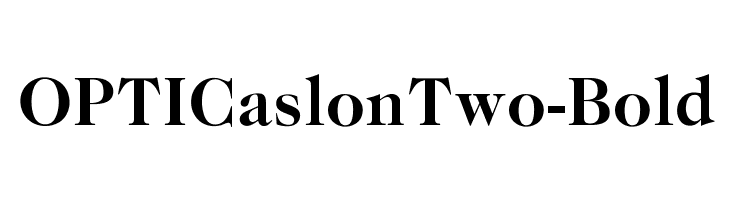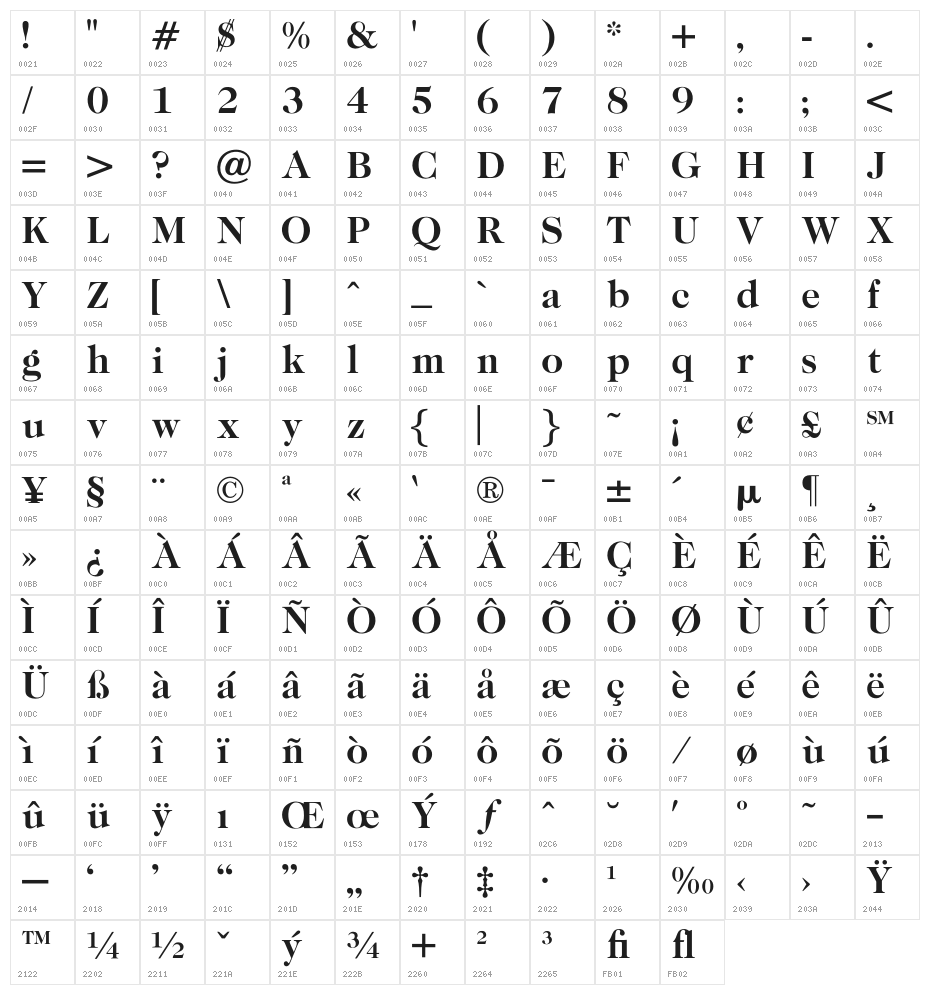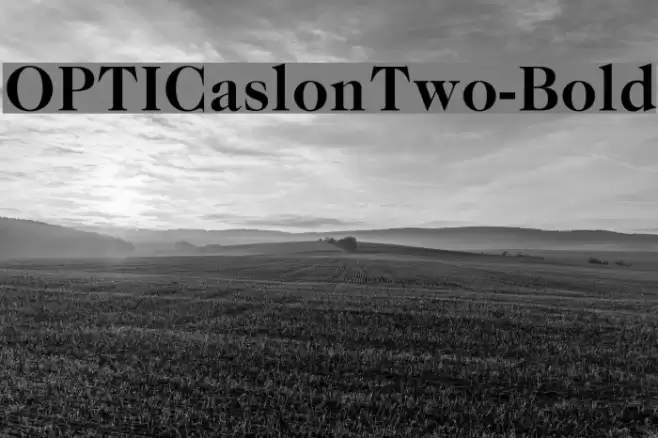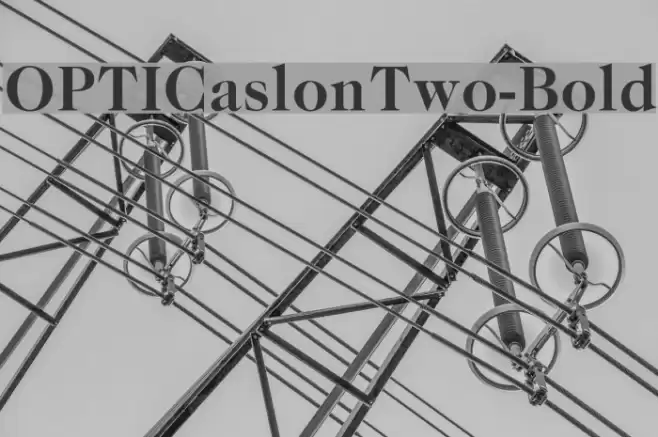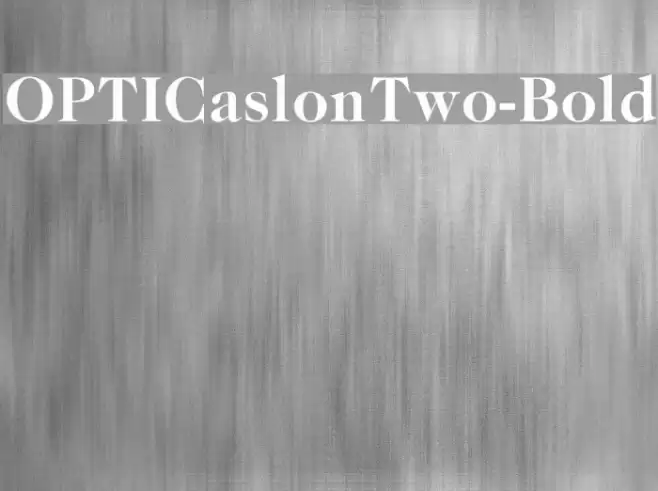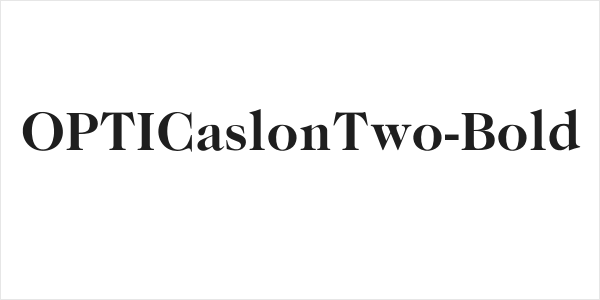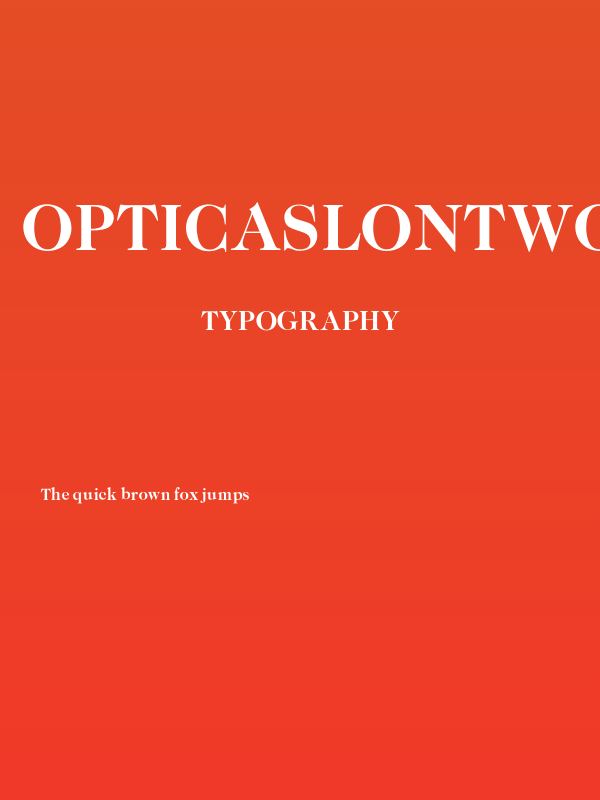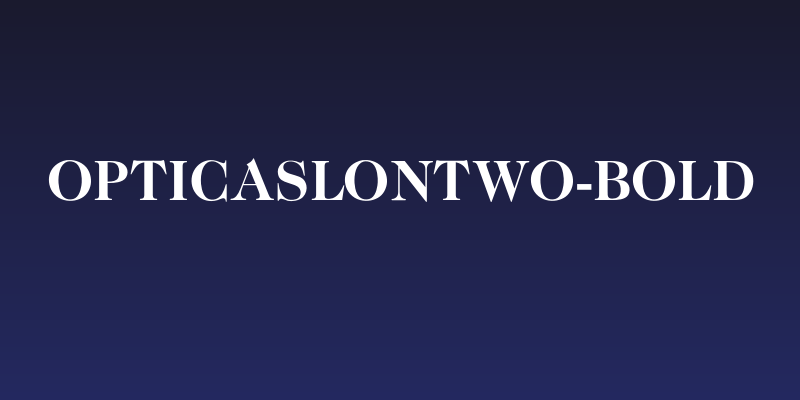
OPTICaslonTwo-Bold Font
OPTICaslonTwo-Bold Description
This font features a classic serif style with strong, bold strokes and a high contrast between thick and thin lines. The serifs are pronounced and elegant, giving the typeface a timeless and sophisticated appearance. The uppercase letters are stately and well-proportioned, while the lowercase letters maintain a harmonious balance with slightly rounded edges. The numerals are clear and distinct, making them suitable for a variety of applications. Special characters are designed with the same attention to detail, ensuring consistency across the font. This typeface exudes a sense of tradition and reliability, making it ideal for formal and professional settings.
| Proposed Projects | Ideal for book covers, formal invitations, branding for luxury products, and editorial design. |